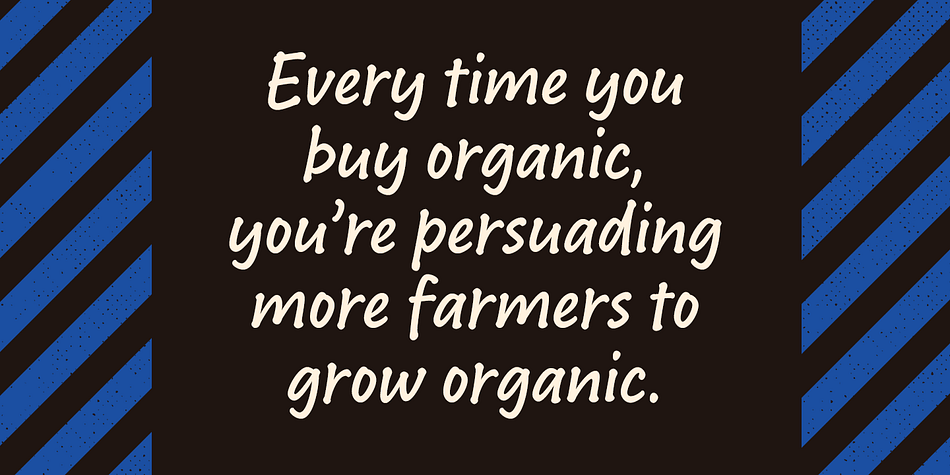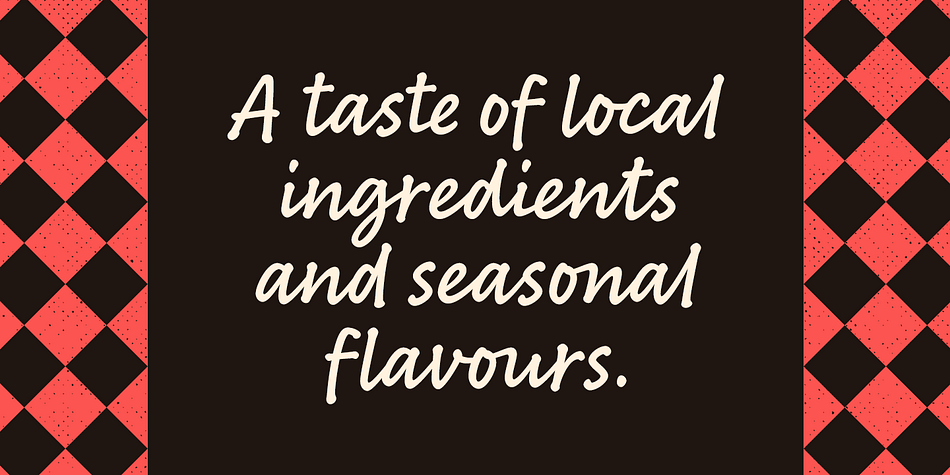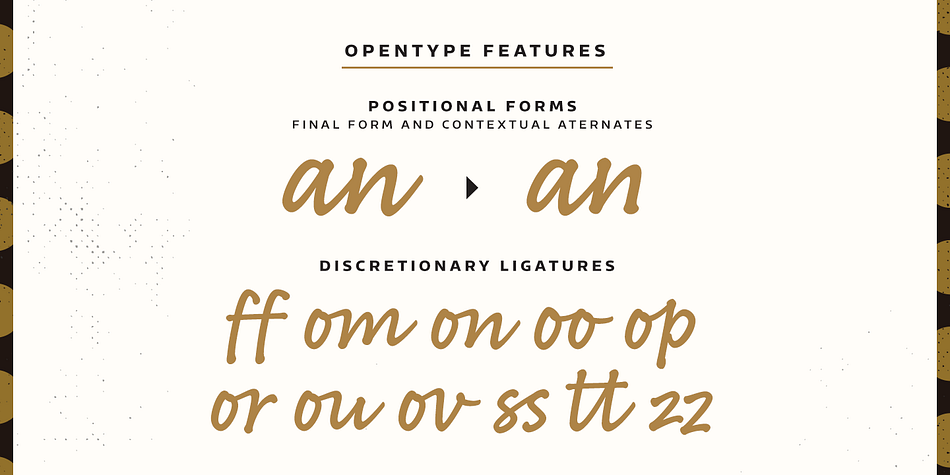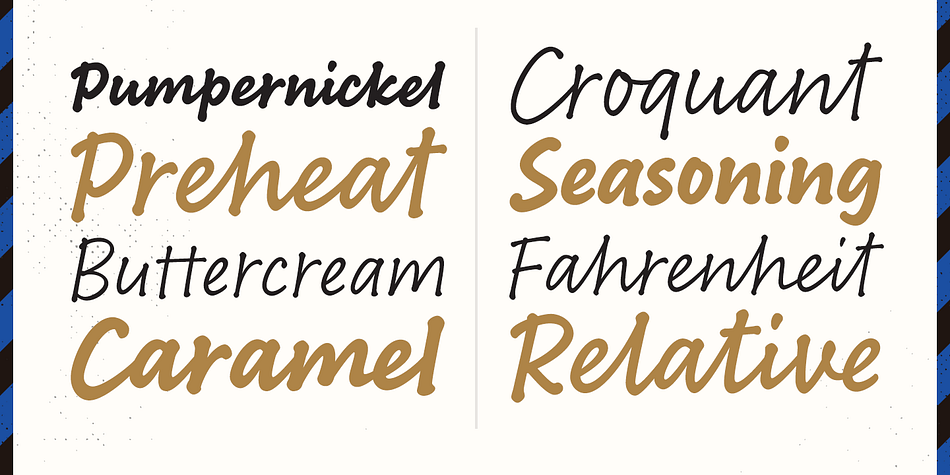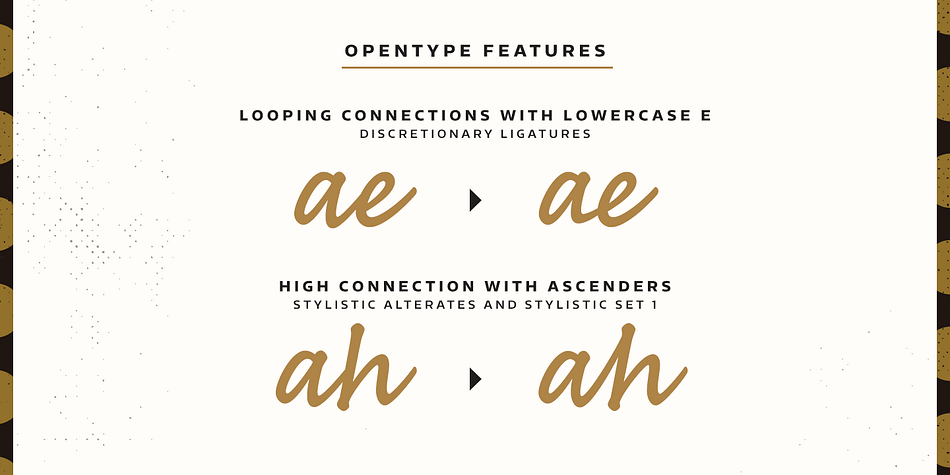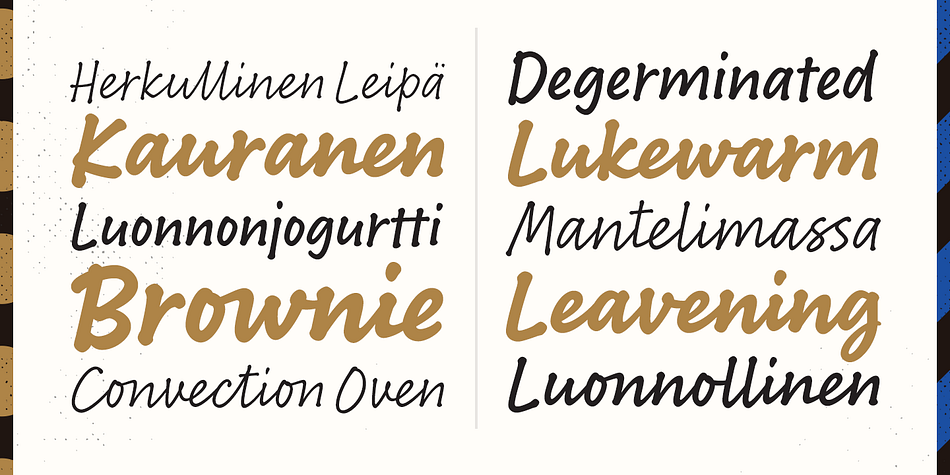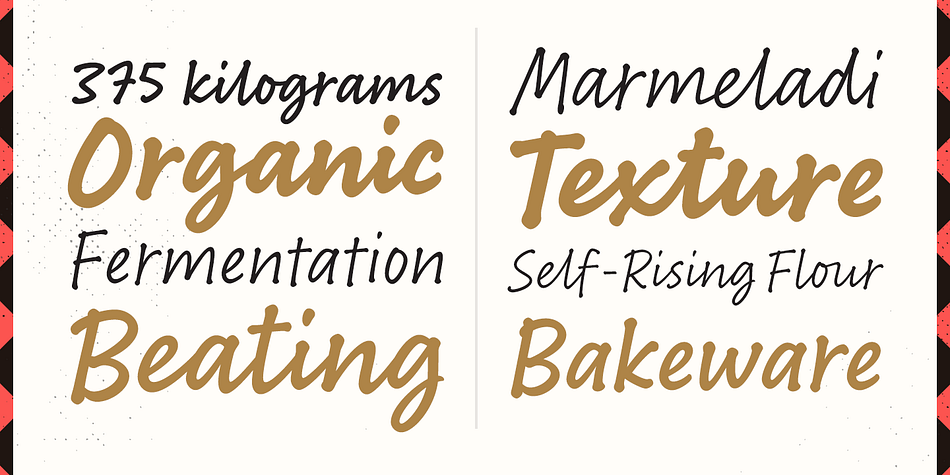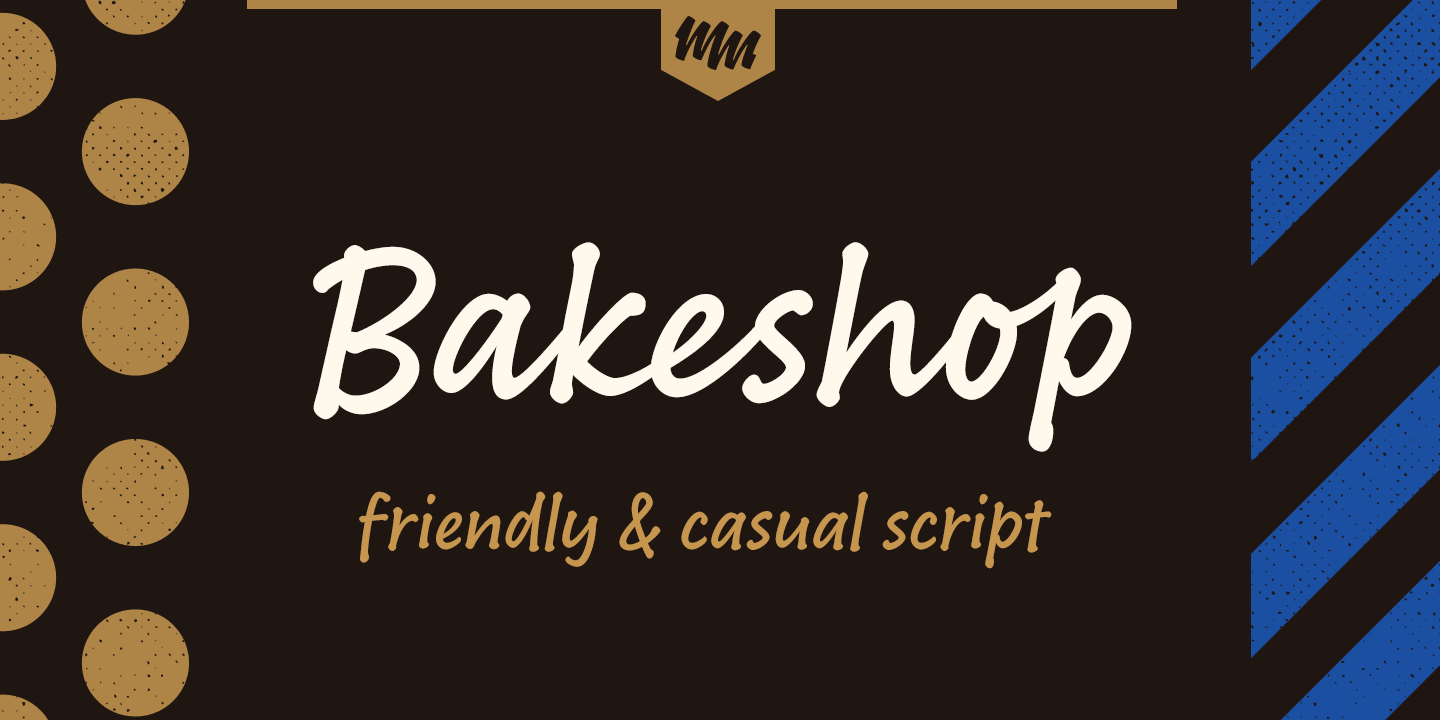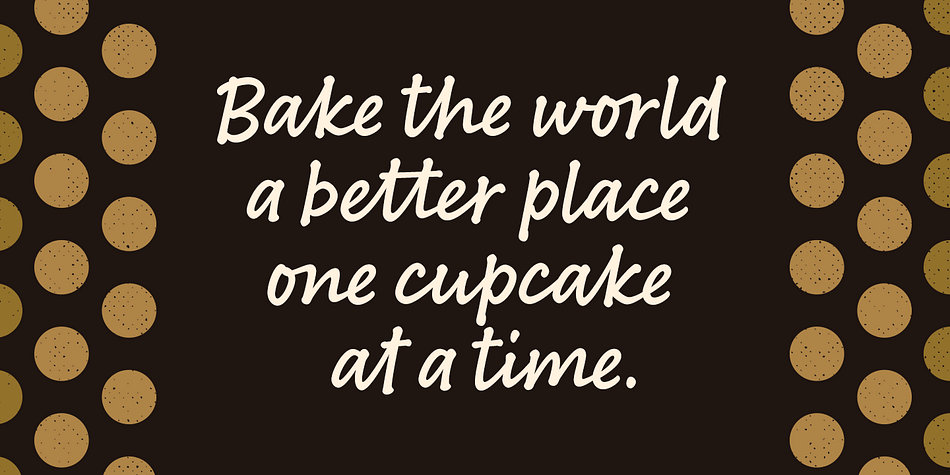
Bakeshop is a hand drawn and script font family. This typeface has six styles and was published by Mika Melvas.
Bakeshop is a casual script font family. It is drawn with rounded marker so the contrast is quite low. It has bumps at the end of strokes where the pen has stopped and the ink has spread. Bakeshop includes three weights and has both connecting and non-connecting versions.
Connecting Bakeshop versions has OpenType features like Final Forms, looping connections with lowercase e, high connecting stroke with ascenders and plenty of discretionary ligatures. You can enable Final Forms either enabling Final Form feature or Contextual Alternates. If you want to use the high connection strokes with ascenders enable Stylistic Alternater or Stylistic Set 2. And if you like to use the ligatures just enable Discretionary Ligatures feature.